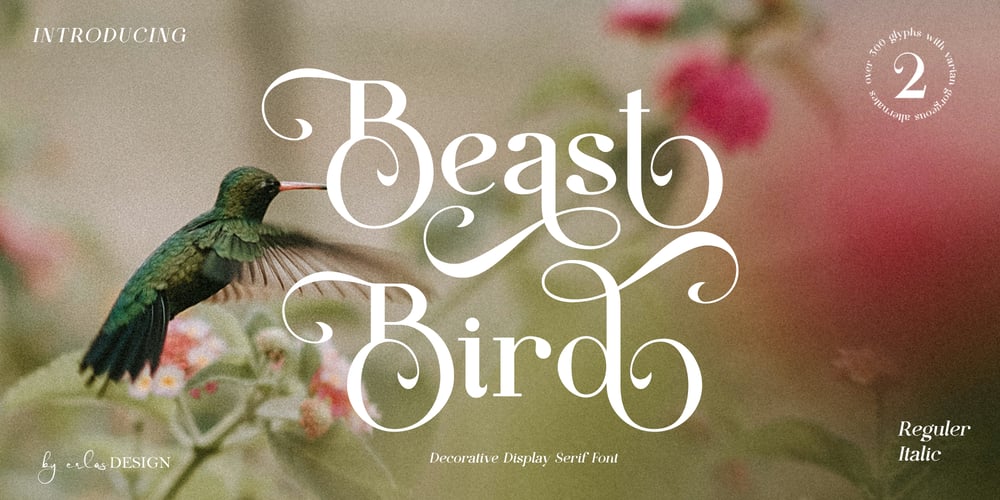
Beast Bird Font Family was designed by Erlangga Suherman and published by ErlosDesign. Beast Bird contains 2 styles and family package options. Beast Bird is a decorative display serif with vintage and elegant vibes. Add a sophisticated style to your designs with Beast Bird. This font is perfect for logos, posters, web design, graphic quotes, album covers, branding, and more.